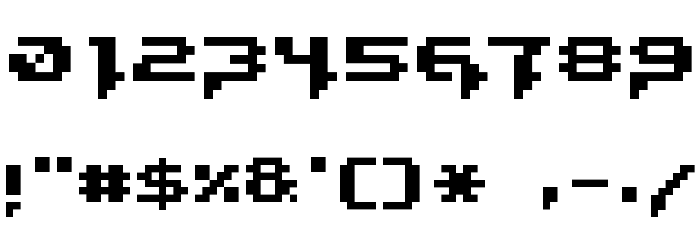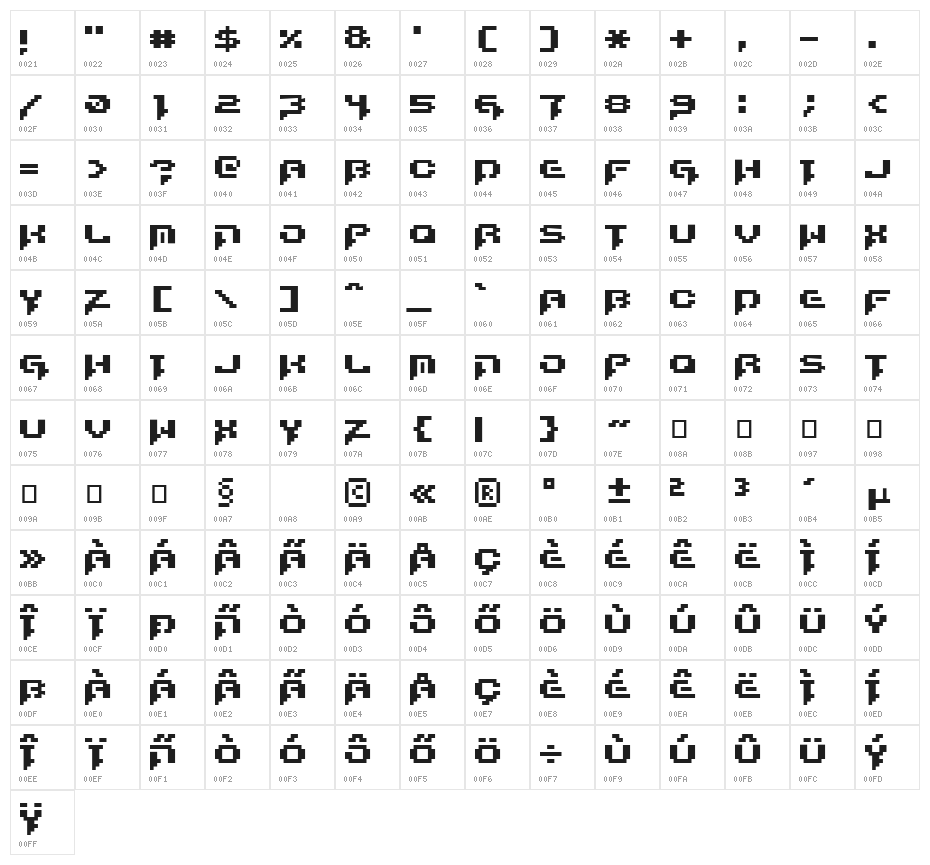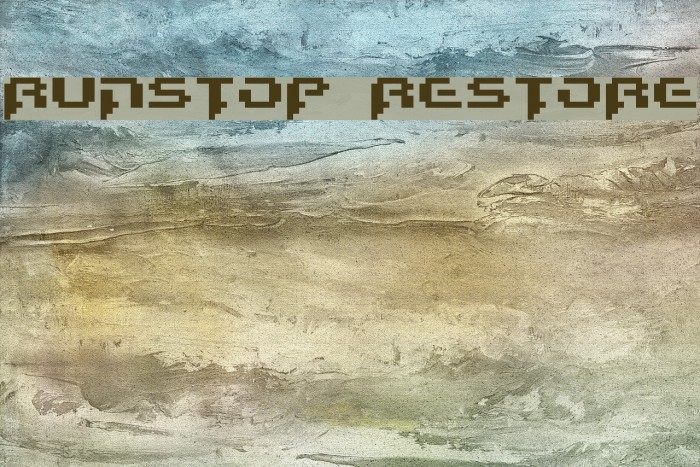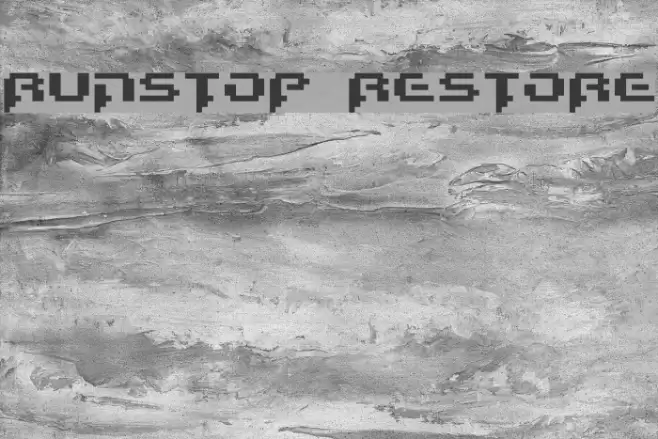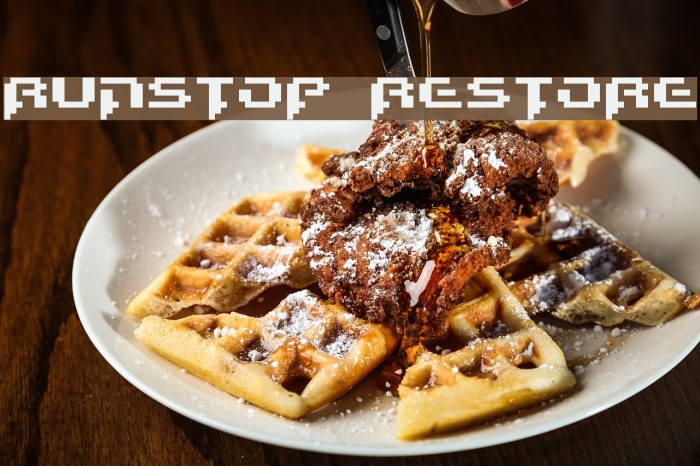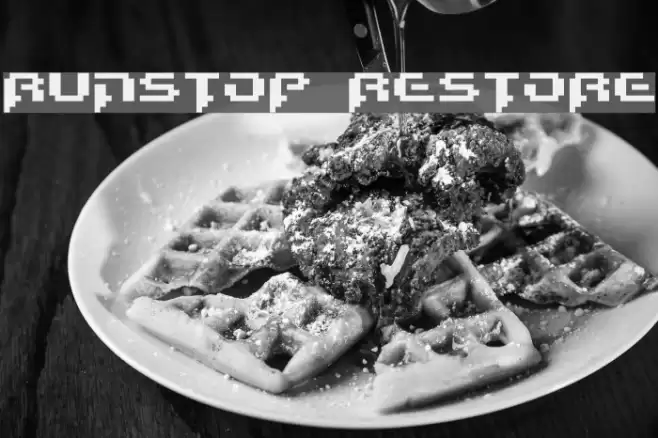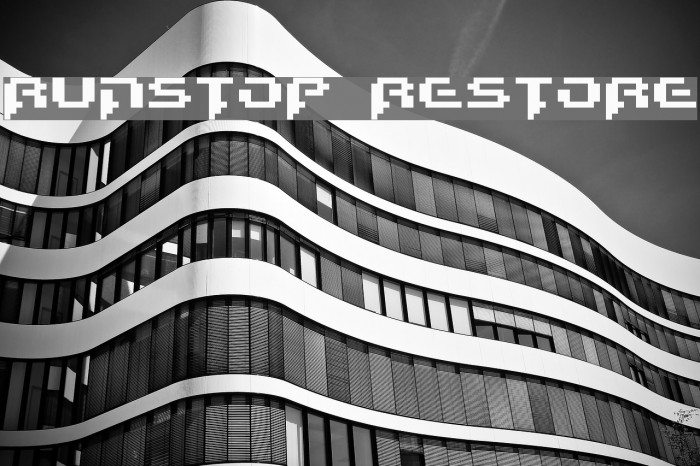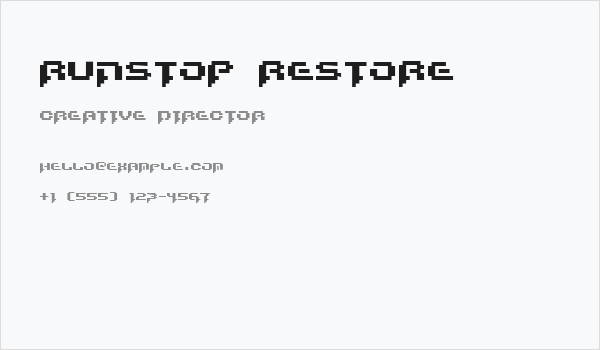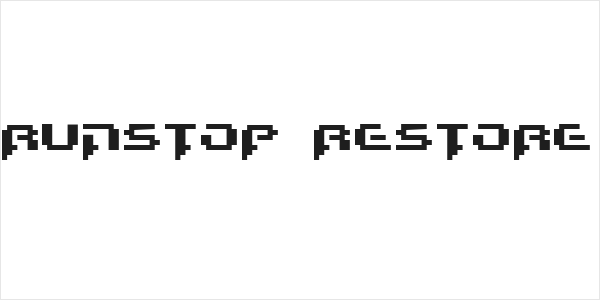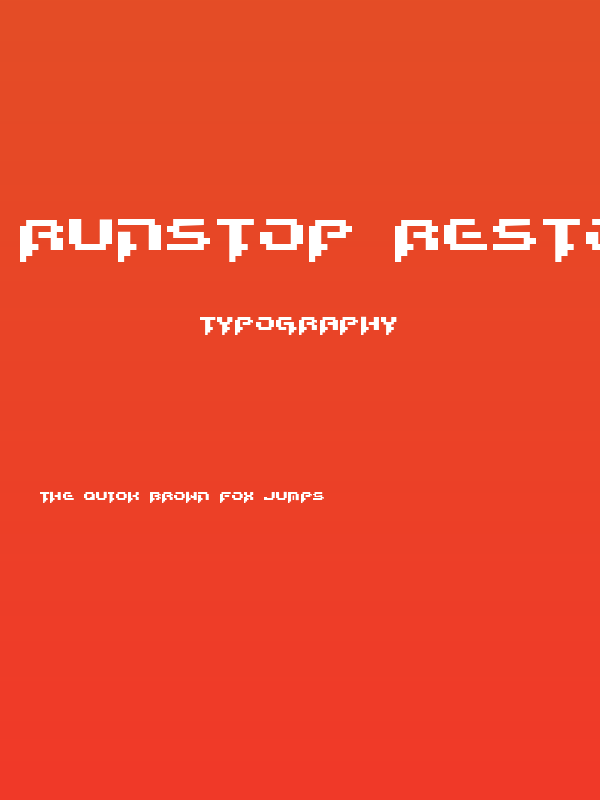
Runstop Restore Font
Runstop Restore Description
This font features a bold, pixelated style reminiscent of early digital or video game aesthetics. Each character is constructed with sharp, angular edges, giving it a blocky and geometric appearance. The uniformity in height and width across the characters contributes to a cohesive and structured look. The font's design is highly legible, making it suitable for digital displays and retro-themed projects. Its distinct style captures a sense of nostalgia, ideal for projects aiming to evoke a vintage digital feel.
| Use Case | Headlines, Logos, Digital displays |
| Proposed Projects | Ideal for video game design, digital art projects, retro-themed posters, and websites seeking a nostalgic digital look. |